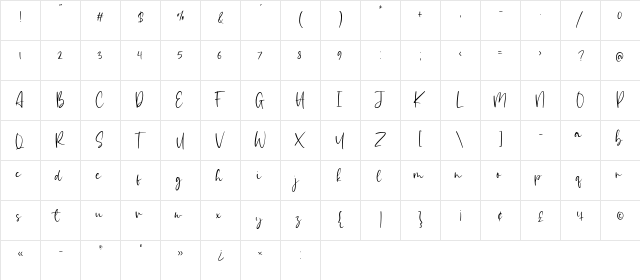
Simplemind Regular
| Designer | Balpirick Studio |
Design Context for Simplemind Typeface
Simplemind is a composed and adaptable typeface that performs quietly and consistently across a wide range of design contexts.